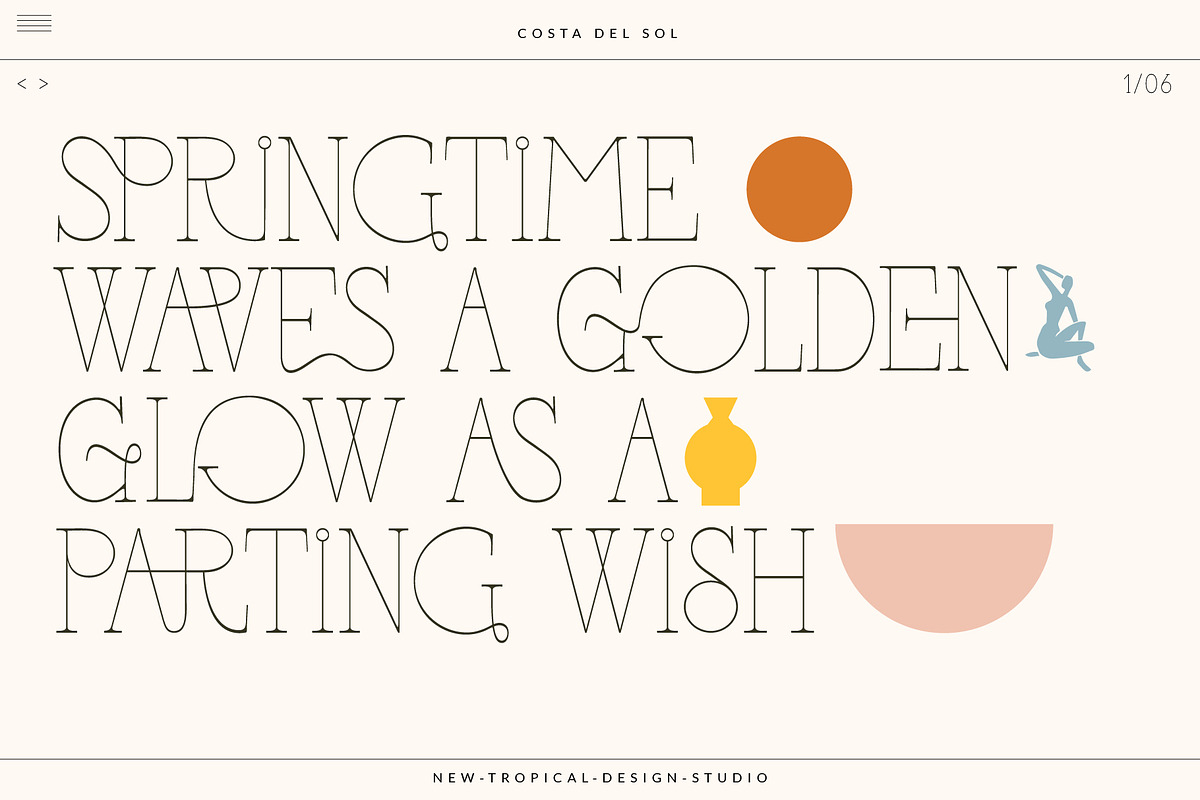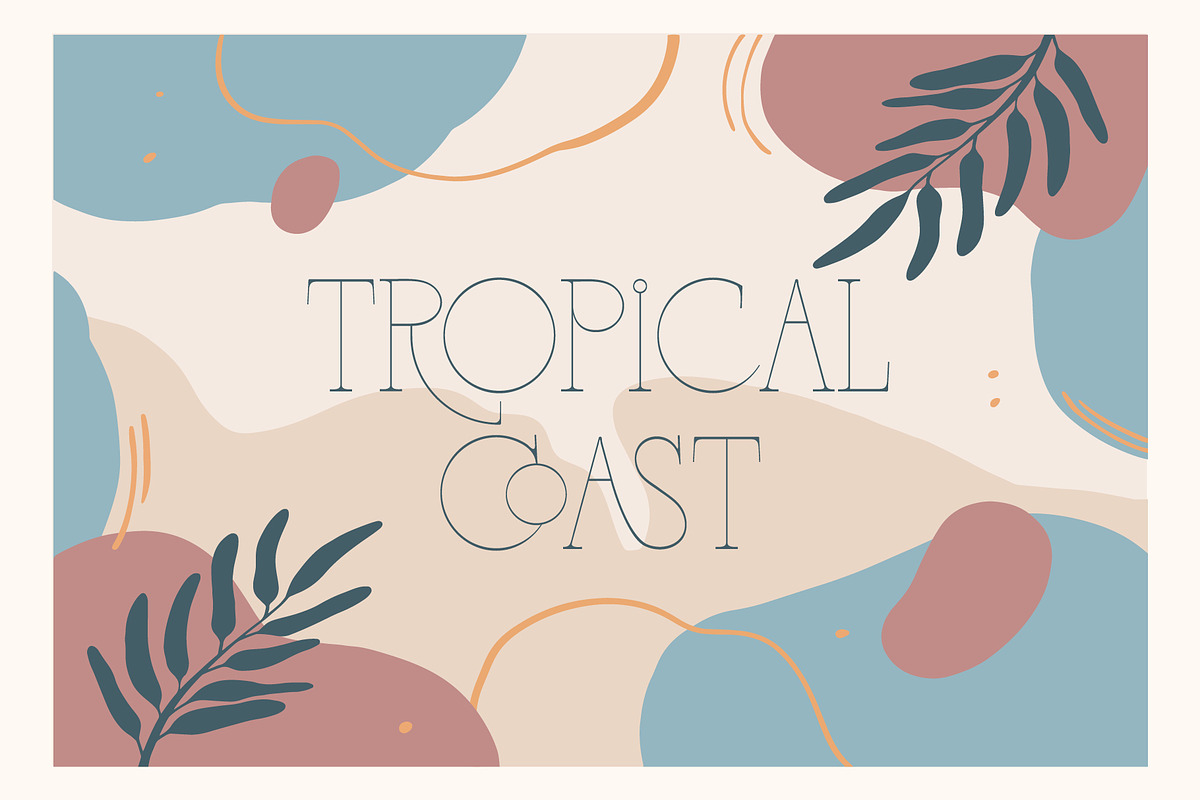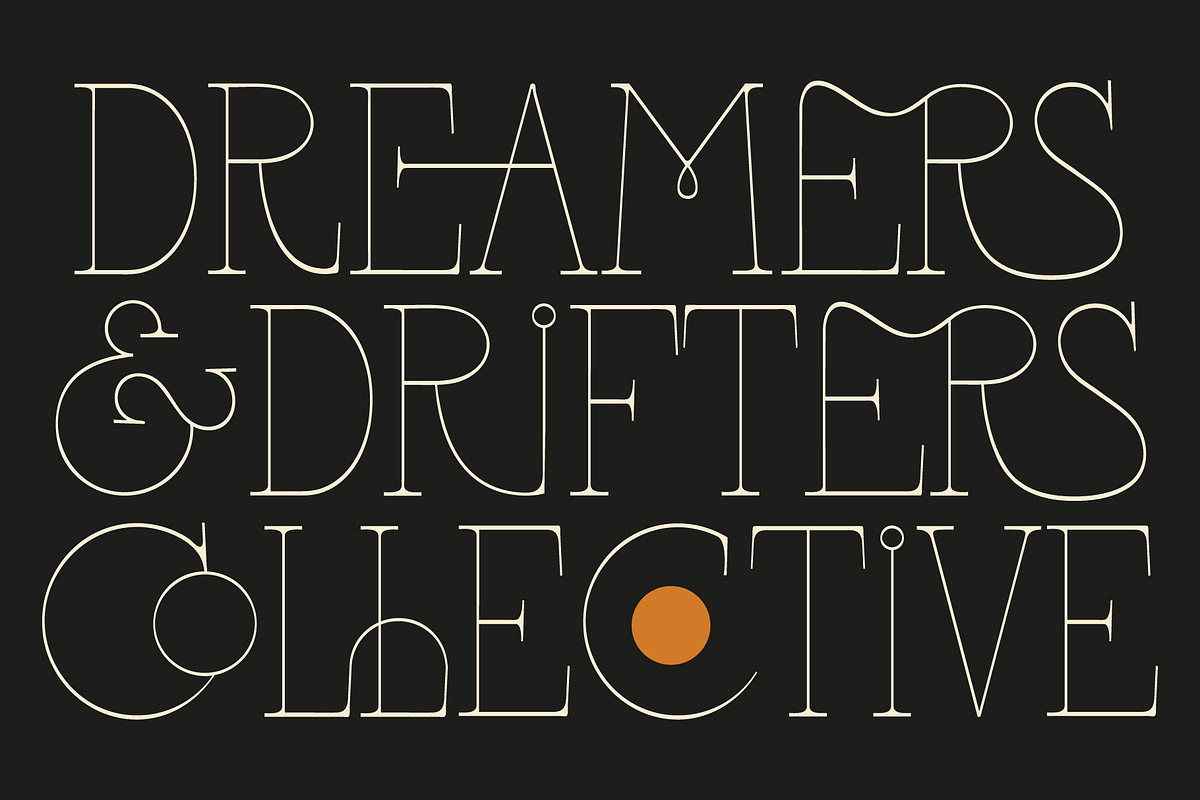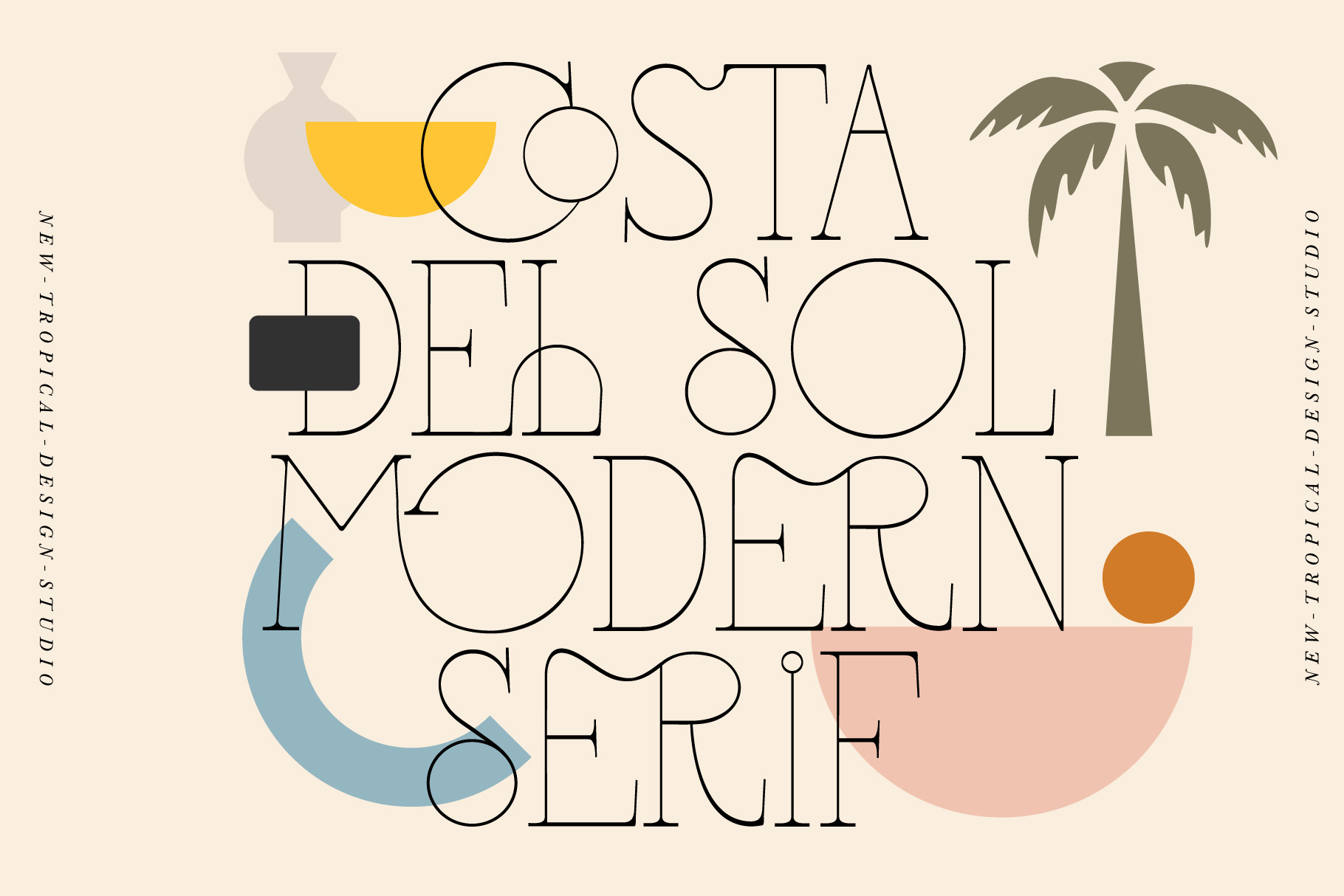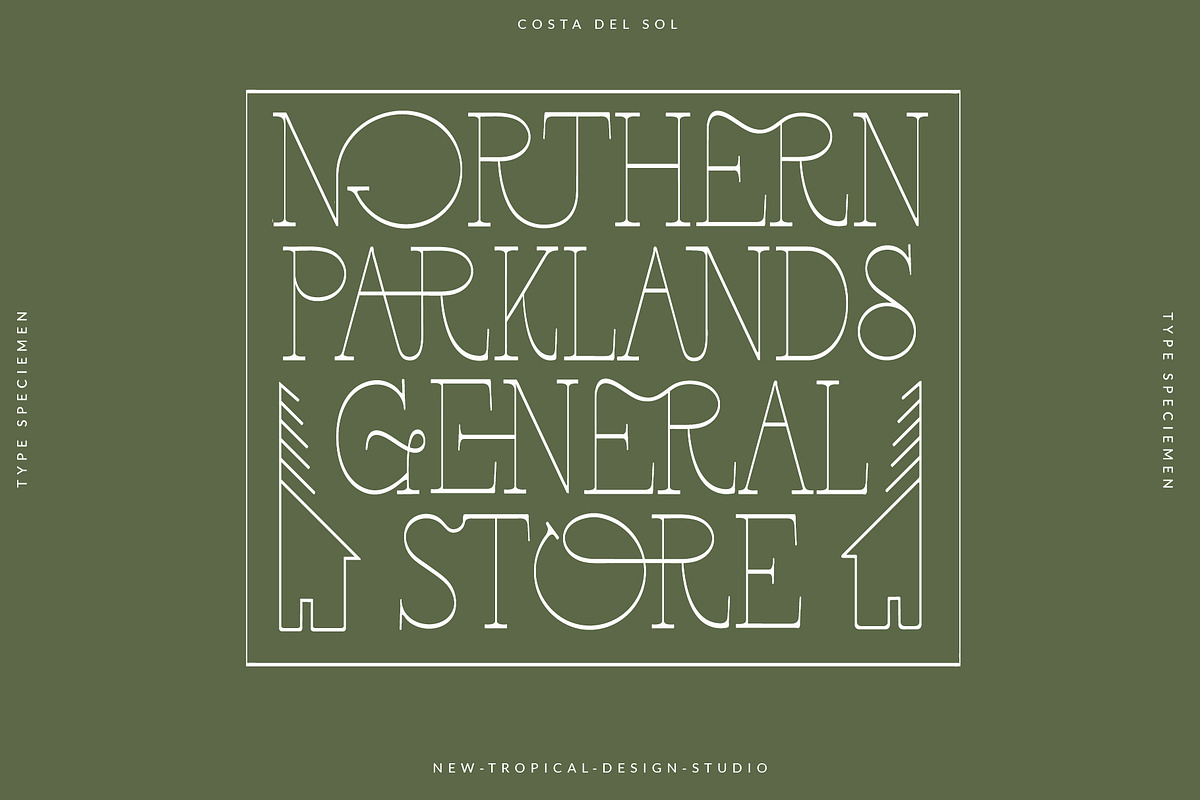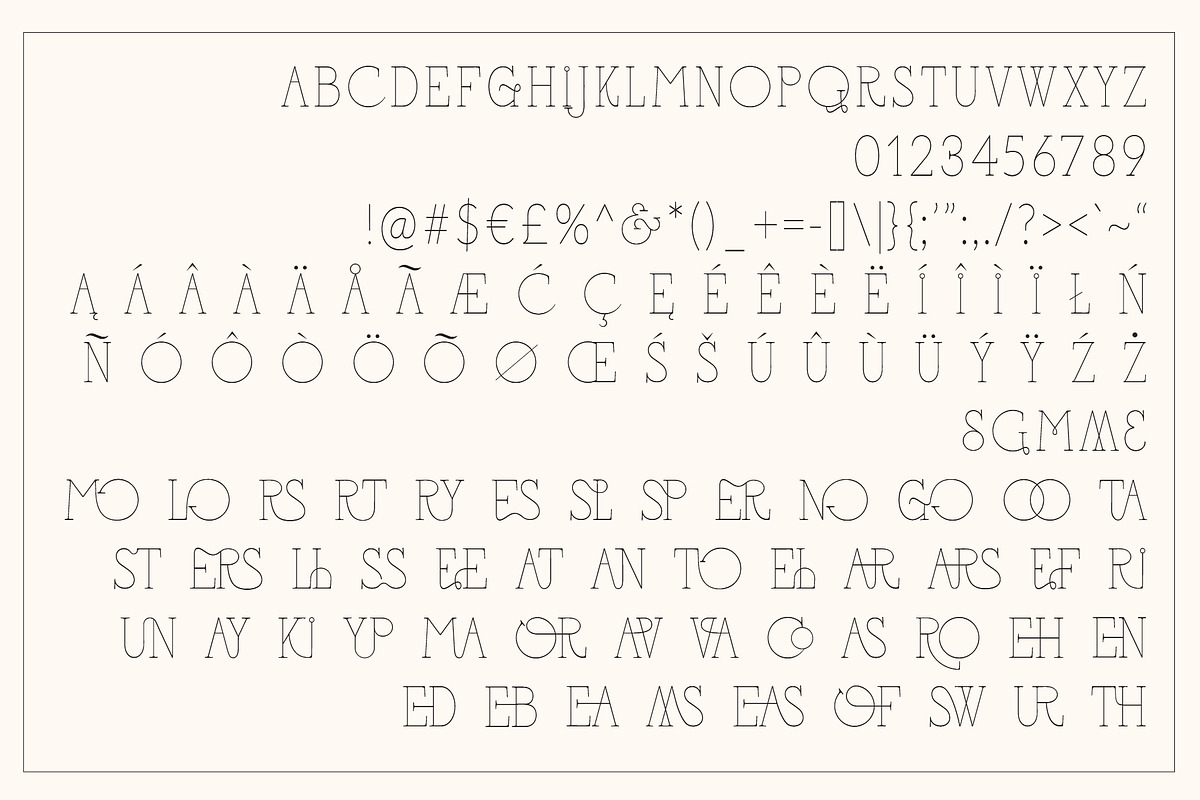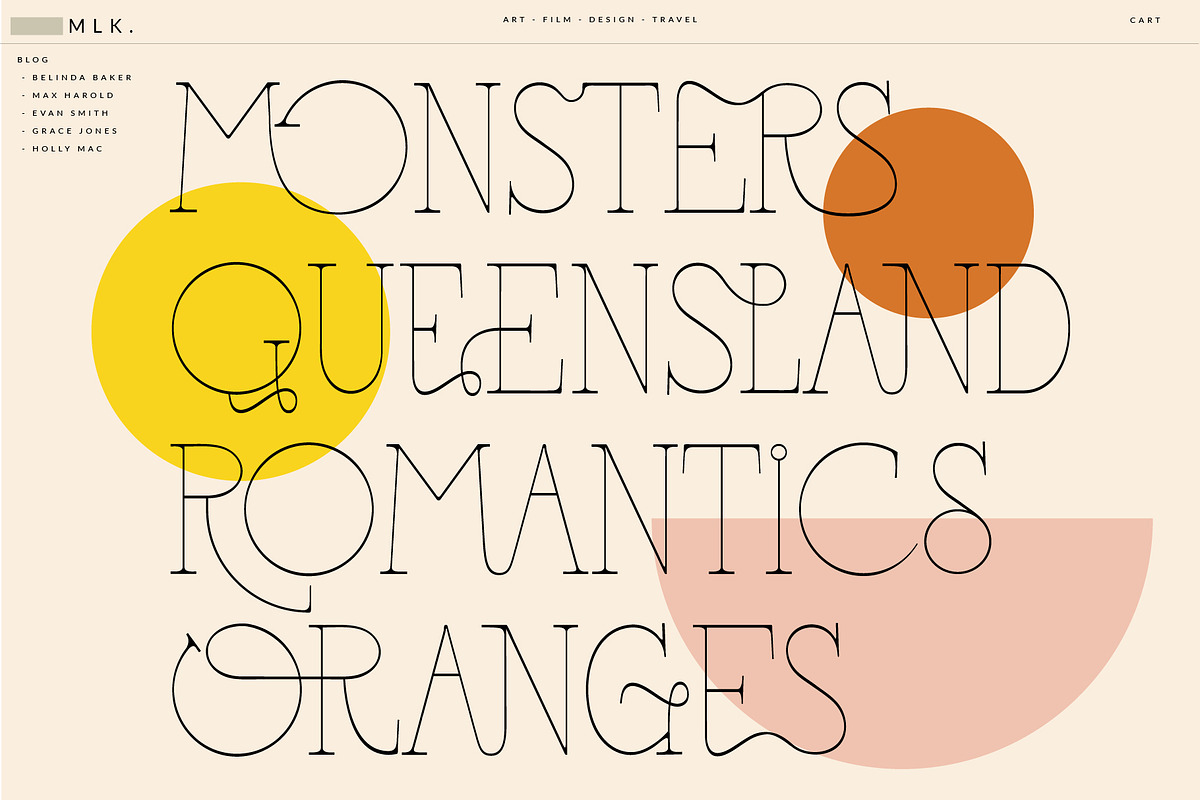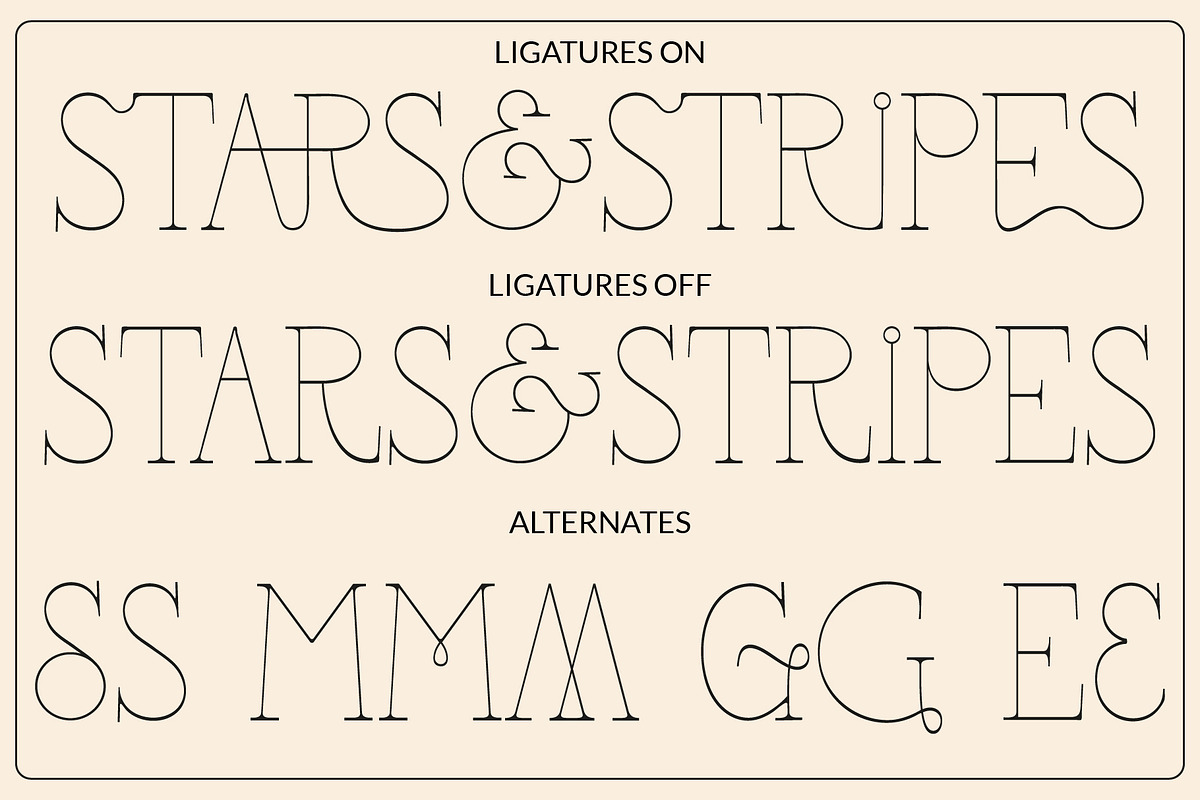
Costa Del Sol - Fun Ligature Font
Costa Del Sol is a super fun ligature serif. With over 50 joining ligatures it's easy to make a unique logo, headline or poster in seconds. Full of interesting characters, this memorable typeface has a geometric playful vibe that is a little bit modern and a little bit deco.
- Uppercase, numbers, punctuation, ligatures and alternates
- Multilingual support ( including polish )